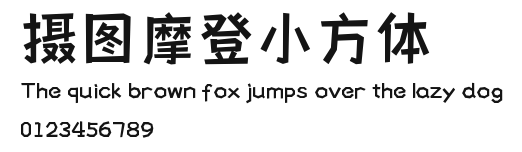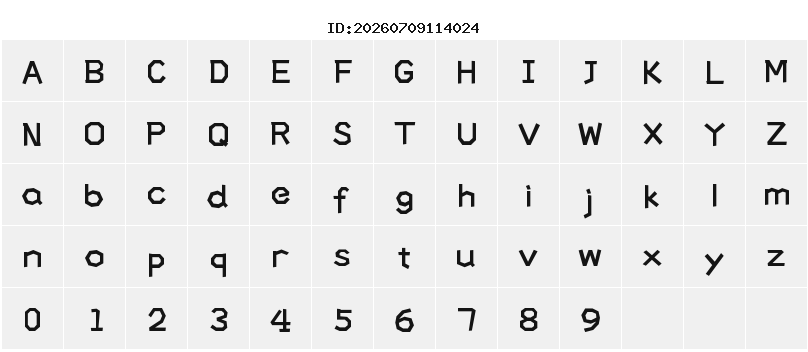
摄图摩登小方体 Preview
• Font Name: 摄图摩登小方体
• Character Count: 6977
• Manufacturer: 摄图网
About 摄图摩登小方体.ttf
摄图摩登小方体.ttf is a modern, elegant sans-serif font designed for ultimate readability and visual harmony. Perfect for branding, headlines, web design, and print materials.